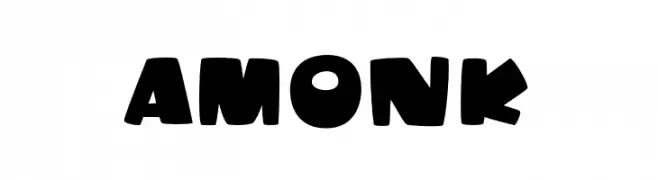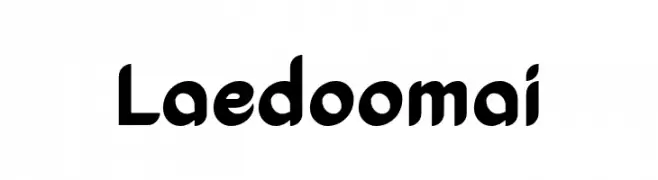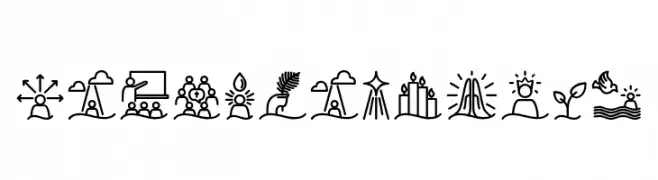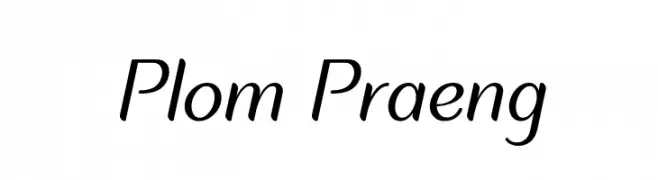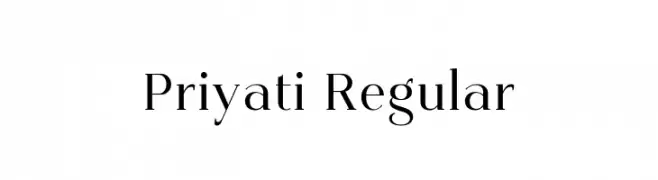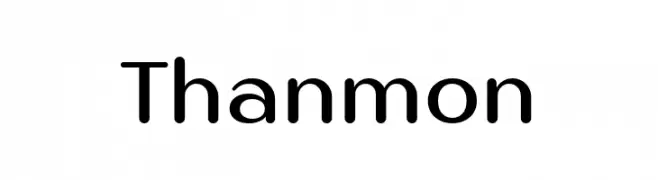
A dynamic italic font with smooth curves and a modern flair.
A bold, rounded font with a playful and modern style.
A classic serif font with elegant, elongated serifs and balanced proportions.
An elegant, flowing script font with a calligraphic style.
A modern, clean sans-serif font with balanced proportions and high legibility.
A bold, modern sans-serif font with clean lines and rounded edges.
A modern, flowing script font with elegant slant and smooth curves.
A modern, rounded sans-serif font with smooth curves and uniform stroke width.
Line art icon set with religious and community motifs.
A bold, rounded font with a playful and chunky style.